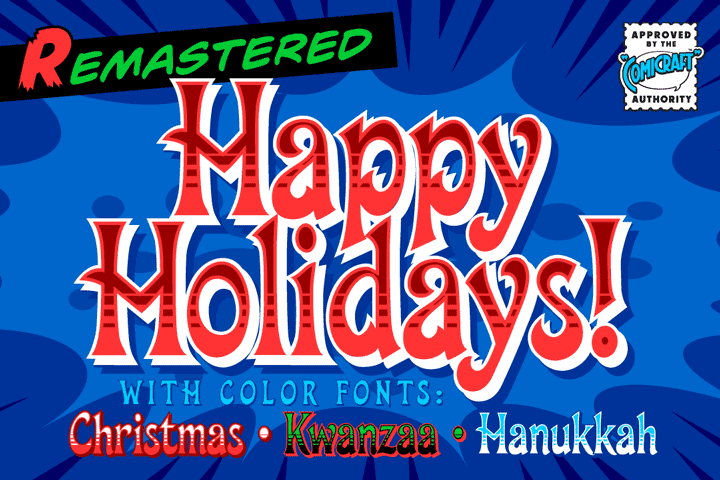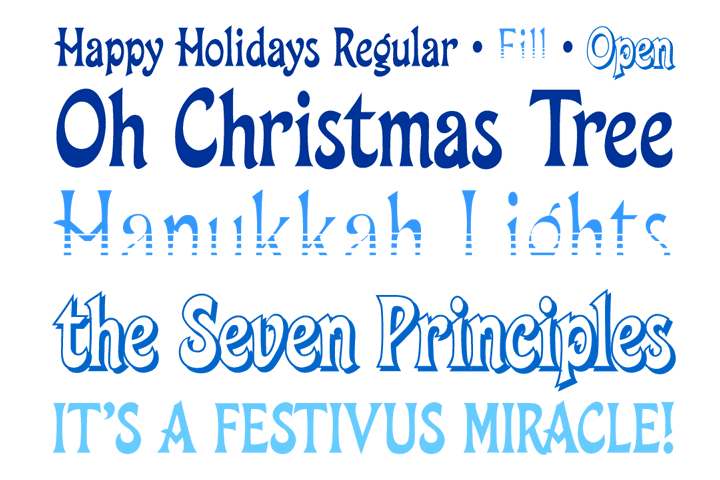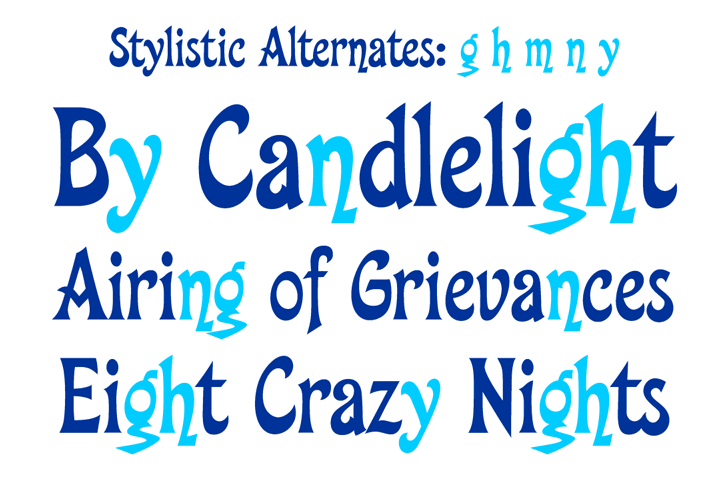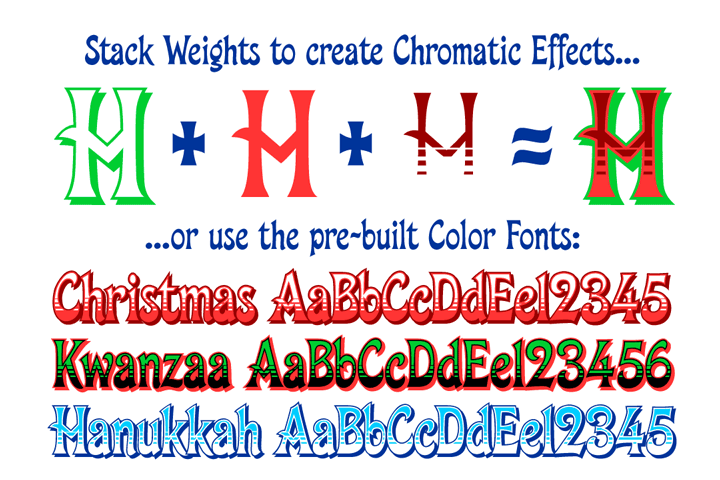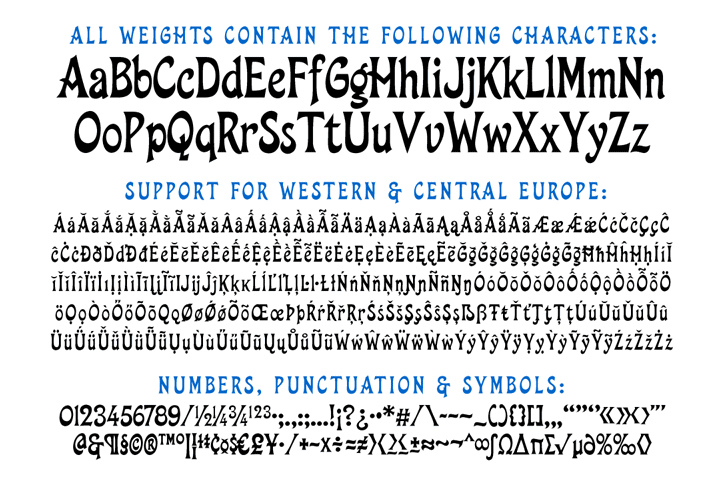
Happy Holidays
Happy Holidays font
Back in 2006 when we first released our Happy Holidays font, we thought the War on Christmas was over!
We'd taken down our Menorahs, our Christmas trees, reclining Buddhas and red, black and green Kwanzaa decorations, and were prepared to sprinkle nothing more than a little Season's Greetings over our end of year celebrations. When we saw our friends and neighbors at department stores, we'd greet them with a simple, cordial, non-denominational “Happy Holidays.”
But the font showed up at our company party this year having learned over 200 new languages (and, it must be said, a little bit loaded on Stylistic Alternates) in a mood to celebrate EVERYTHING. It was wishing people happy Bodhi Day, Solstice, Festivus, you name it! It even brought (count 'em) THREE new outfits based on the colors of Christmas, Hanukkah and Kwanzaa.
So may the designs on the cups of the hot beverages that take you through the long dark coffee break of the soul that stretches from Halloween to Thanksgiving to New Year's Day be a little more festive this year with the refreshed, Remastered, all-inclusive spirit of Happy Holidays!
• Three weights with upper & lowercase alphabets
Plus: Stylistic alternates plus three Color Fonts